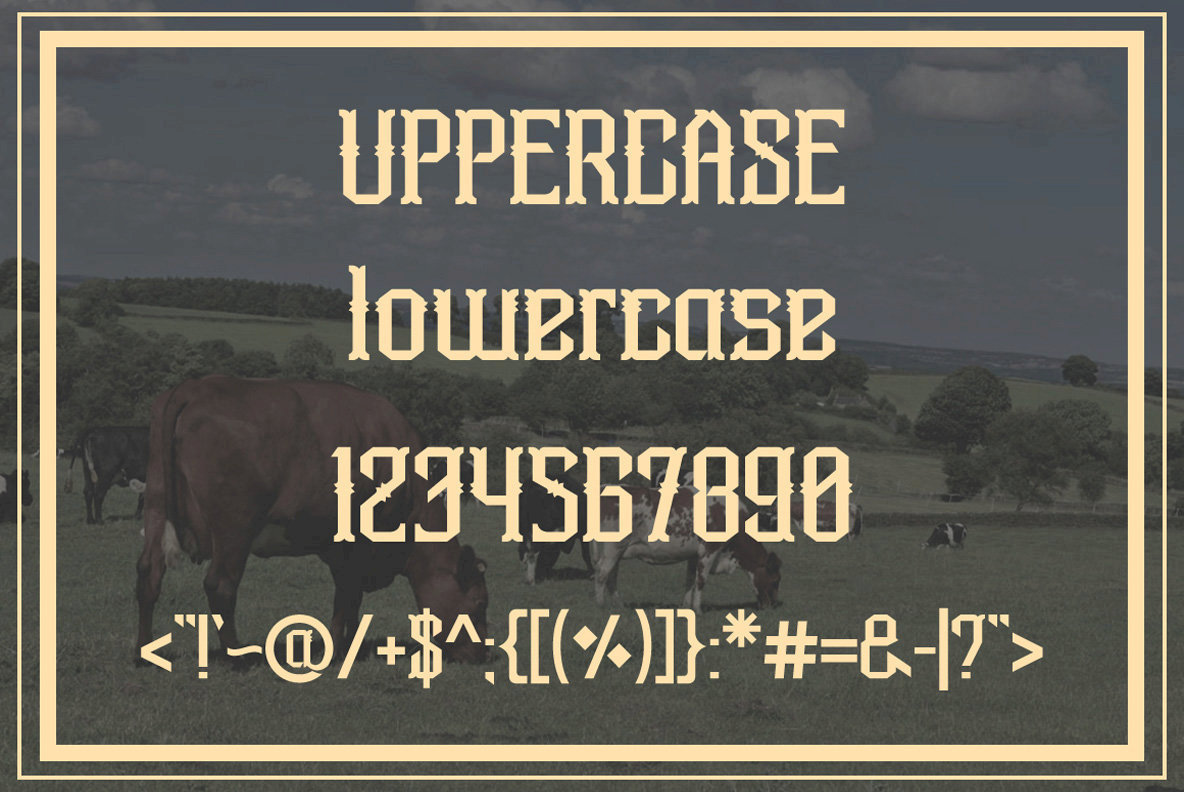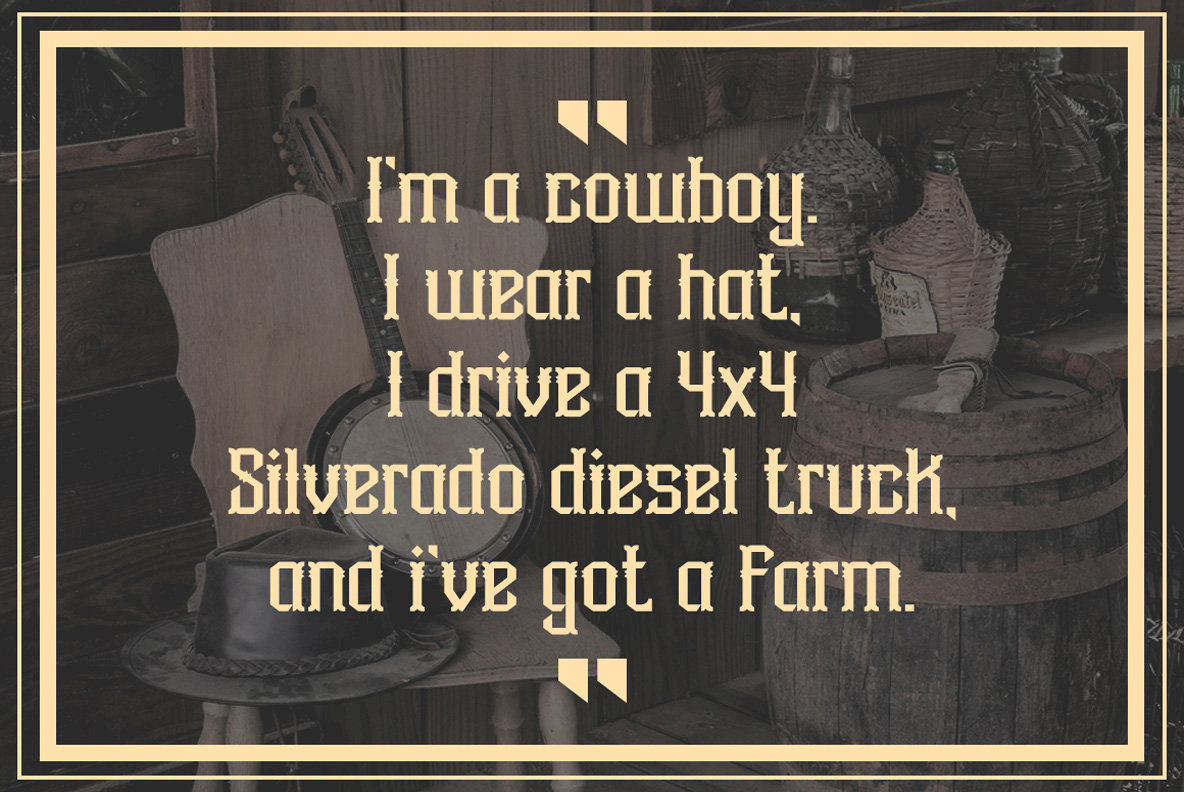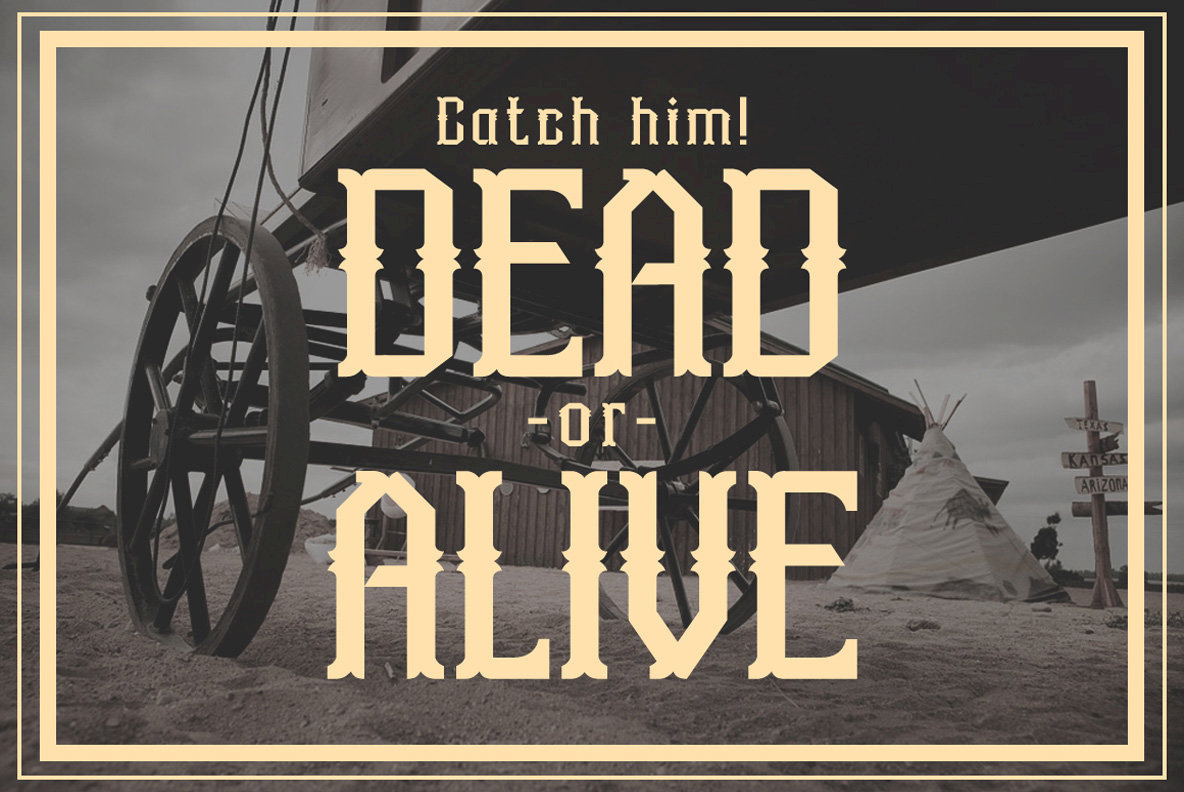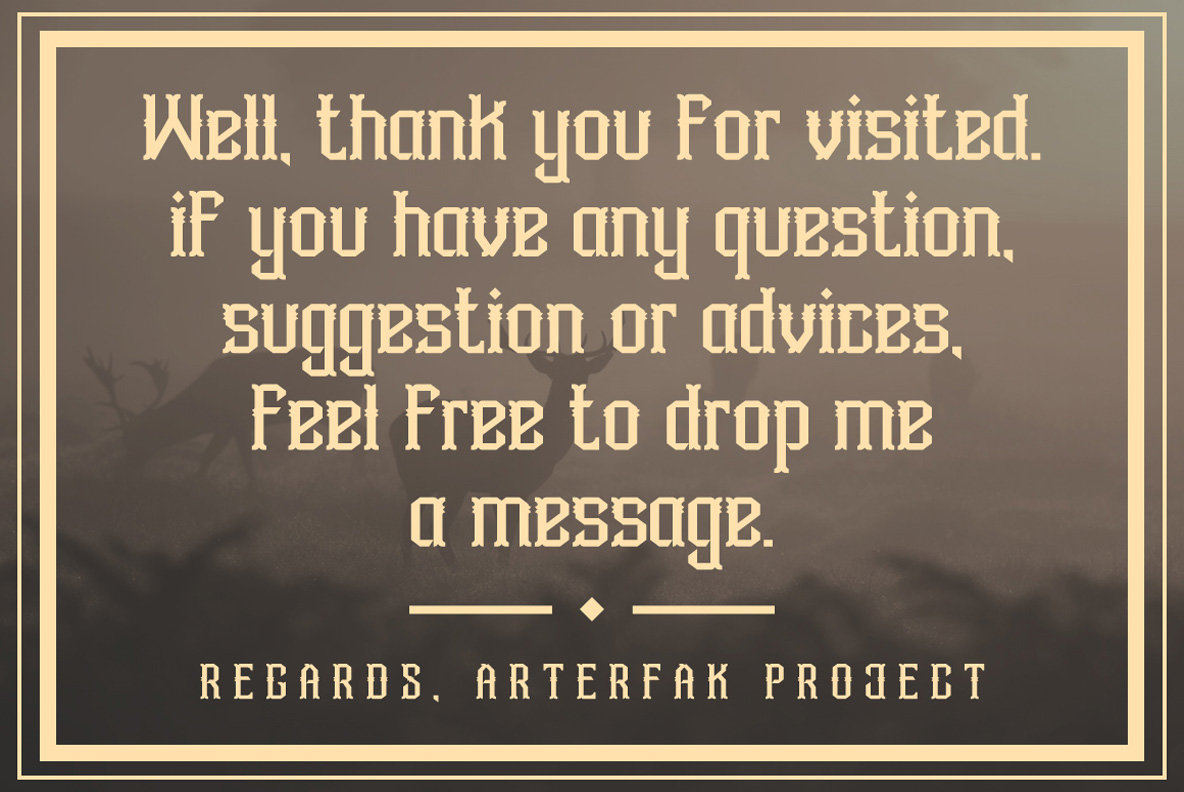
Aidah Font
Aidah Typeface, crafted by Ahmad Ramzi Fahruddin, offers a distinctive experimental design perfect for a wide variety of creative projects. This typeface comes in three unique styles and is an excellent choice for posters, flyers, logos, quotes, and vintage designs. Features:Aidah Typeface: A Versatile Experimental Font